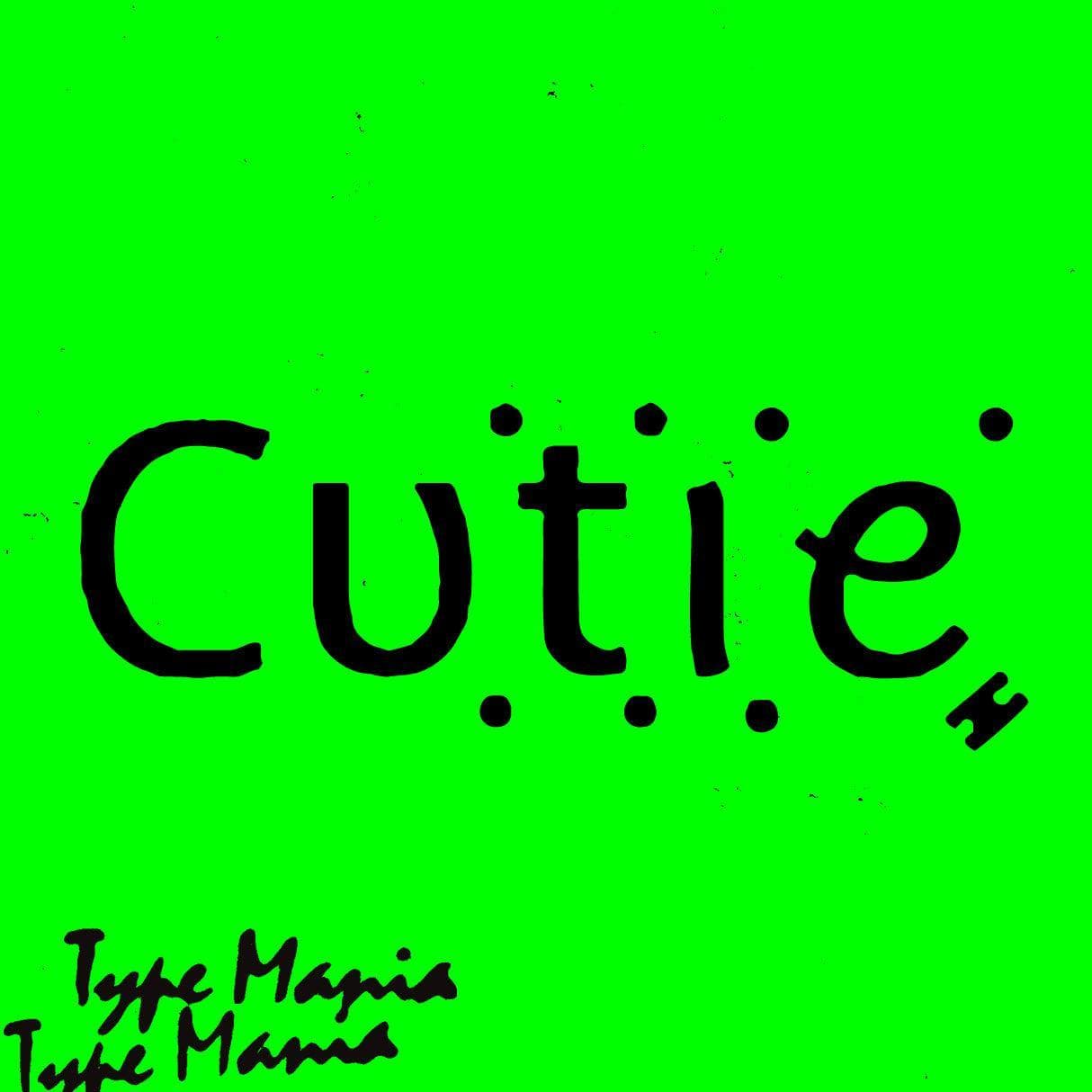
<p><strong>Cutie TM</strong> is a cute (daa) squiqqly font inspired by the internet. As a part of Type Mania's Nice Price collection, it won't break the bank either 😎</p> <p><strong>Zip includes</strong></p> <ul> <li>OTF file</li> <li>TTF file</li> <li>WOFF2 file</li> </ul> <p><strong>Languages</strong></p> <ul> <li>Basic Latin</li> <li>Euro</li> </ul> <p><em>Graphic Design is Easy (with Type Mania)®</em></p>